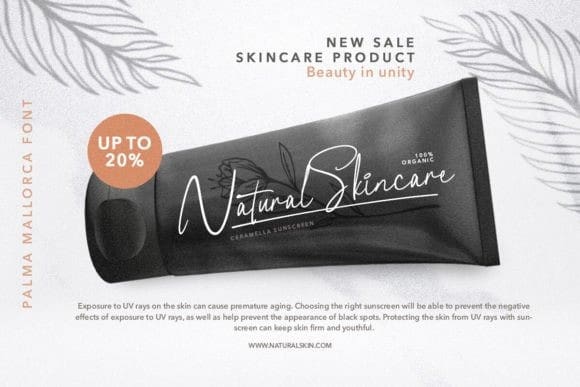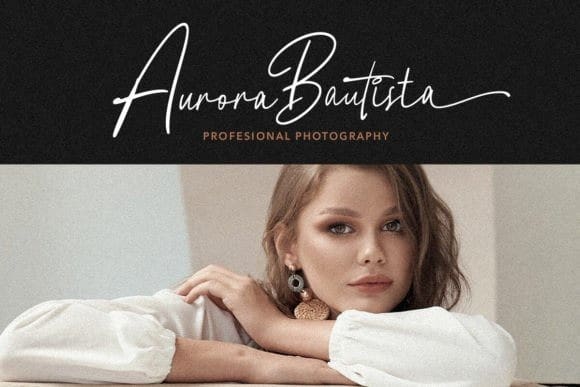
Palma Mallorca Font
Palma Mallorca Font, a monoline handwritten script font that effortlessly combines casual charm with a touch of chic. Its playful strokes and natural flow capture the essence of relaxed elegance, making it the perfect choice for a variety of creative projects. Whether you’re designing invitations, branding materials, or social media graphics, Palma Mallorca adds a unique and captivating personal touch.